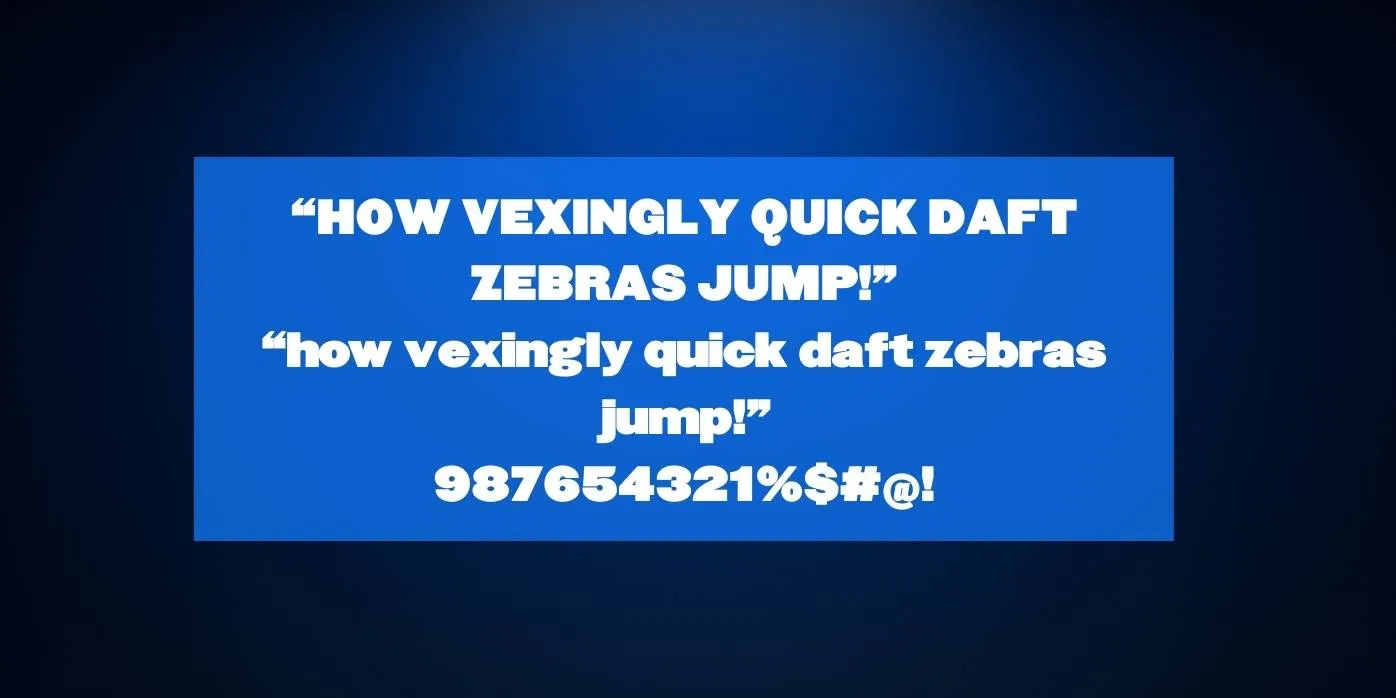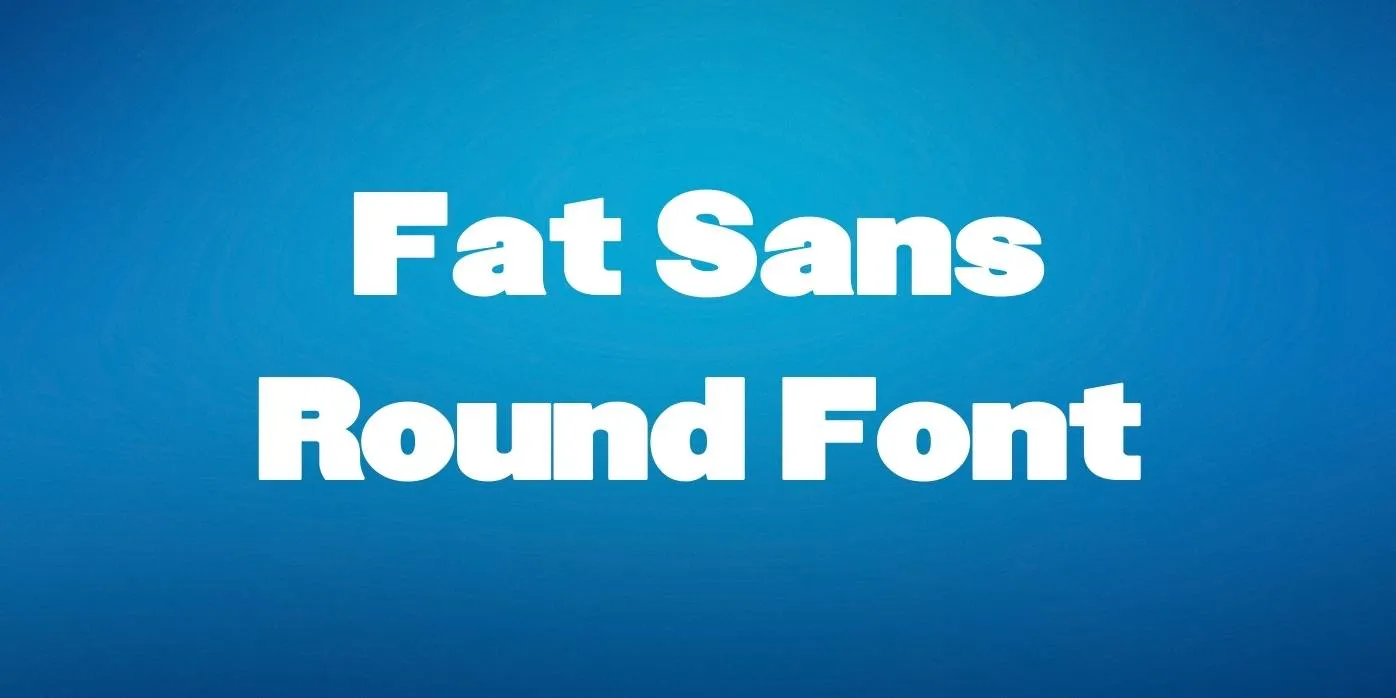
Fat Sans Round Font
Fat Sans Round Font belongs to the sans serif typeface. This classy typeface was designed by Manfred Klein. The designer has given it a very round look. The typeface is available in two styles, namely, regular and italic.
Both the styles have their own unique charm. This stunning font is a great choice for those who are looking for a simple and clean sans serif typeface. It is perfect for both body copy and headlines. This typeface is also suitable for branding and logo design.
Its copy and paste function is perfect for text designs. Another similar font which is the ff cocon font is perfect for different designs. It is a very famous typeface and has been used by many famous brands such as Pepsi, and Nike. Fat Sans Round Typeface is a versatile typeface and can be used for digital and print designs.